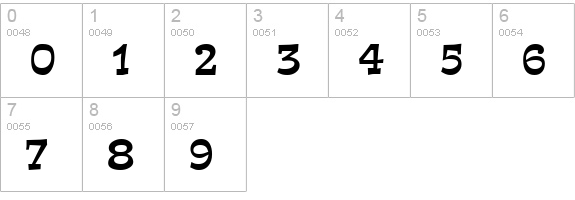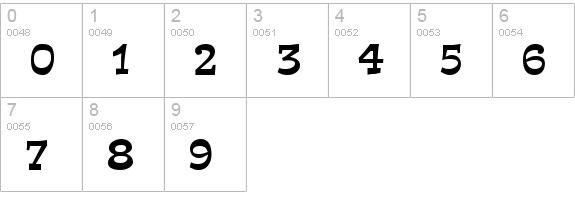
Estro Regular Font Details
Estro Regular is the standard, neutral variant in the Estro typeface family \xE2\x80\x94 well suited to general body text, paragraphs, and standard typographic work.
Estro Regular font is a modern and stylish typeface that exudes sophistication and elegance. With its clean lines and sleek design, this versatile font is perfect for a wide range of design projects, from branding to editorial layouts. The smooth curves and balanced proportions of Estro Regular make it a timeless choice for both print and digital applications. What sets Estro Regular apart is that it is not only visually appealing but also incredibly versatile. Whether you're working on a logo design, packaging, or website, this font will add a touch of class and refinement to your project. Its readability and legibility make it suitable for both headlines and body text, ensuring that your message is communicated clearly and effectively. Best of all, Estro Regular is available for free download at FontsMarket.com, making it accessible to designers and creatives of all levels. Don't miss the opportunity to enhance your projects with this elegant and versatile font. Download Estro Regular today and elevate your designs to the next level.